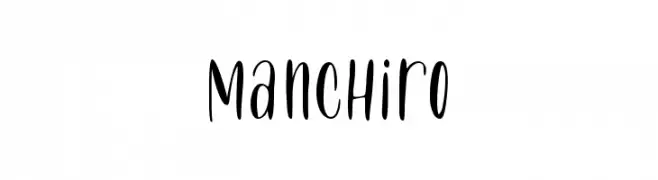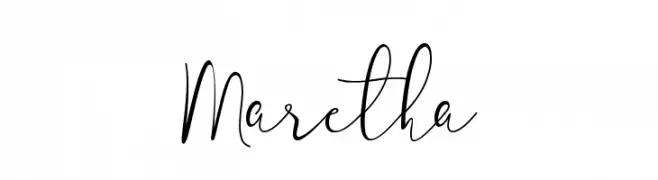
A bold, playful display font with unique patterns and shapes.
A graceful, handwritten script font with elegant, flowing strokes.
A playful, hand-drawn font with bold, flowing strokes and dynamic character shapes.
Animal-themed decorative dingbat font with diverse, detailed illustrations.
A bold, playful font with thick, whimsical characters.
A cursive, calligraphic font with elegant loops and artistic flair.
A playful, handwritten font with bold, rounded strokes and a whimsical style.
A bold, distressed font with a rugged, textured appearance.